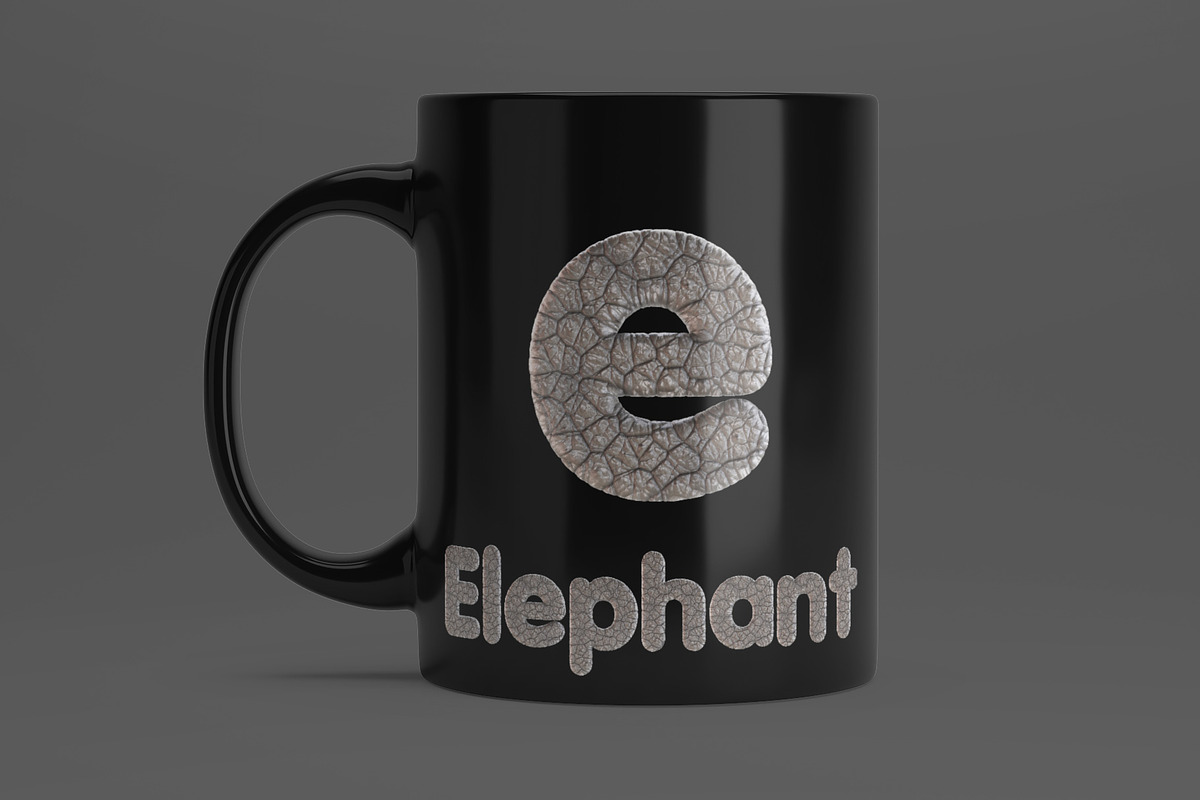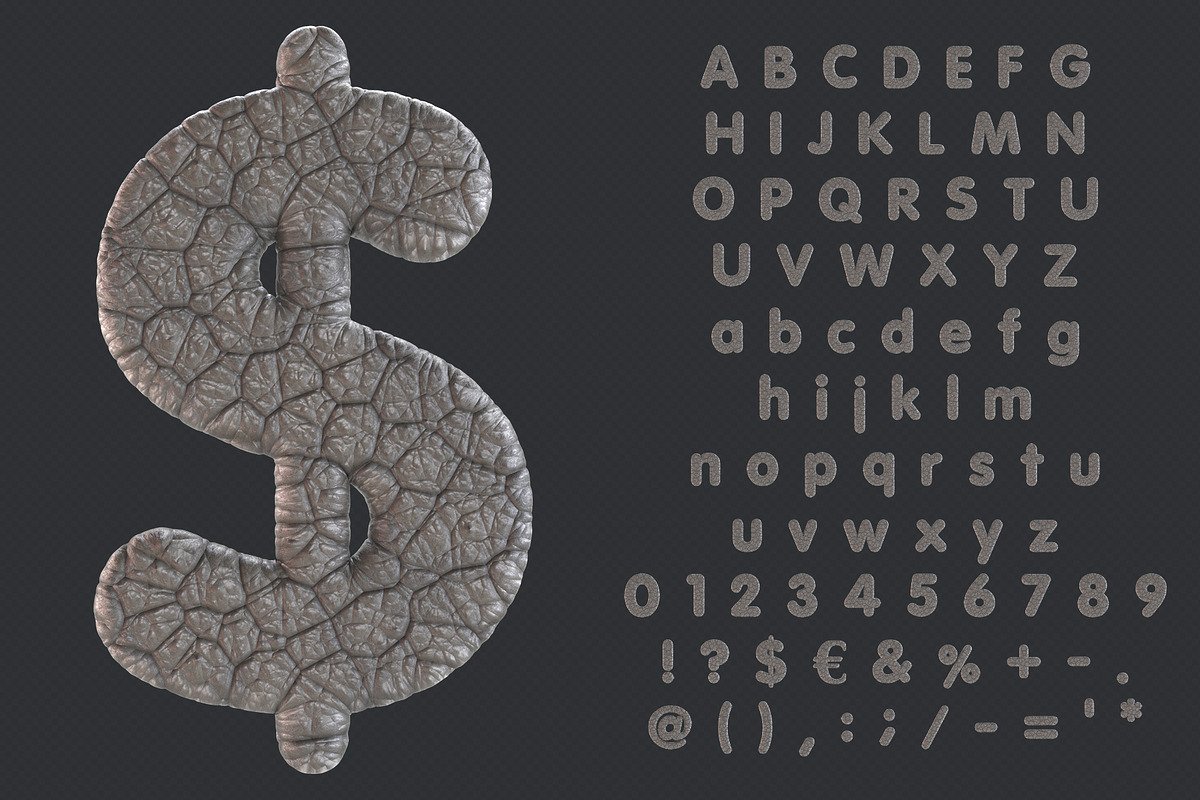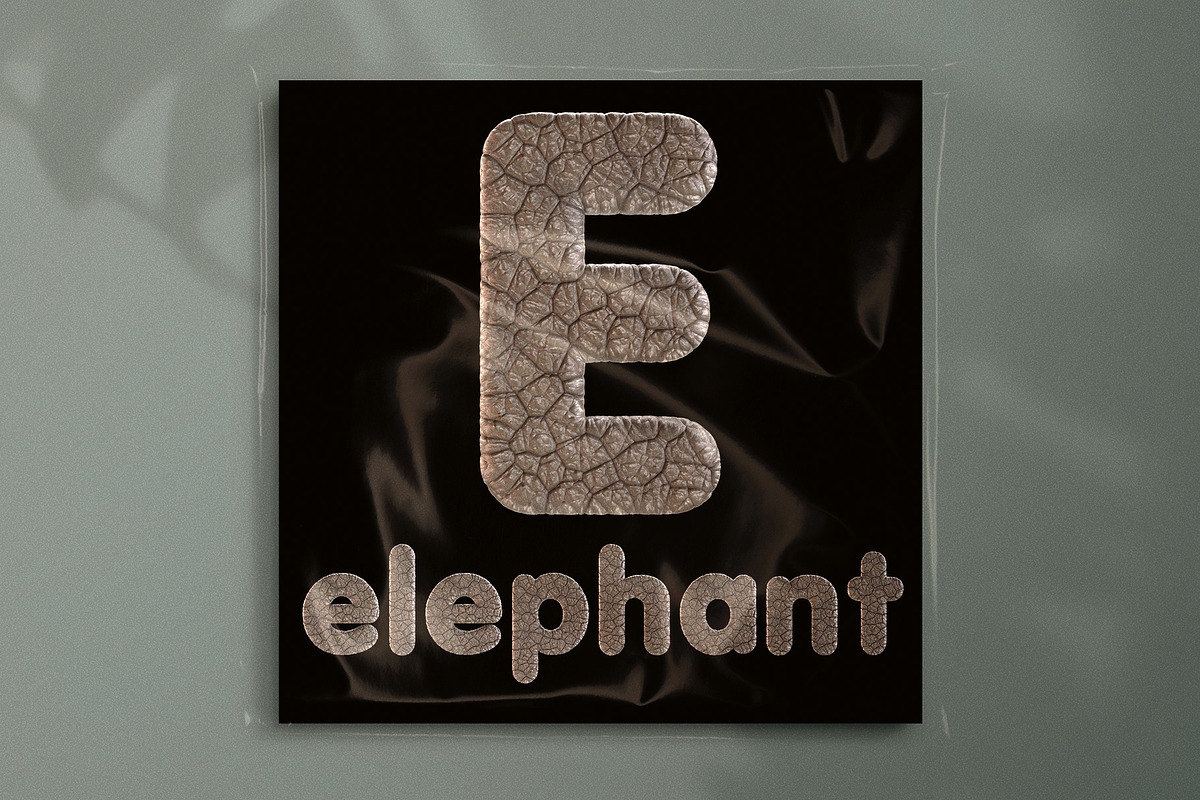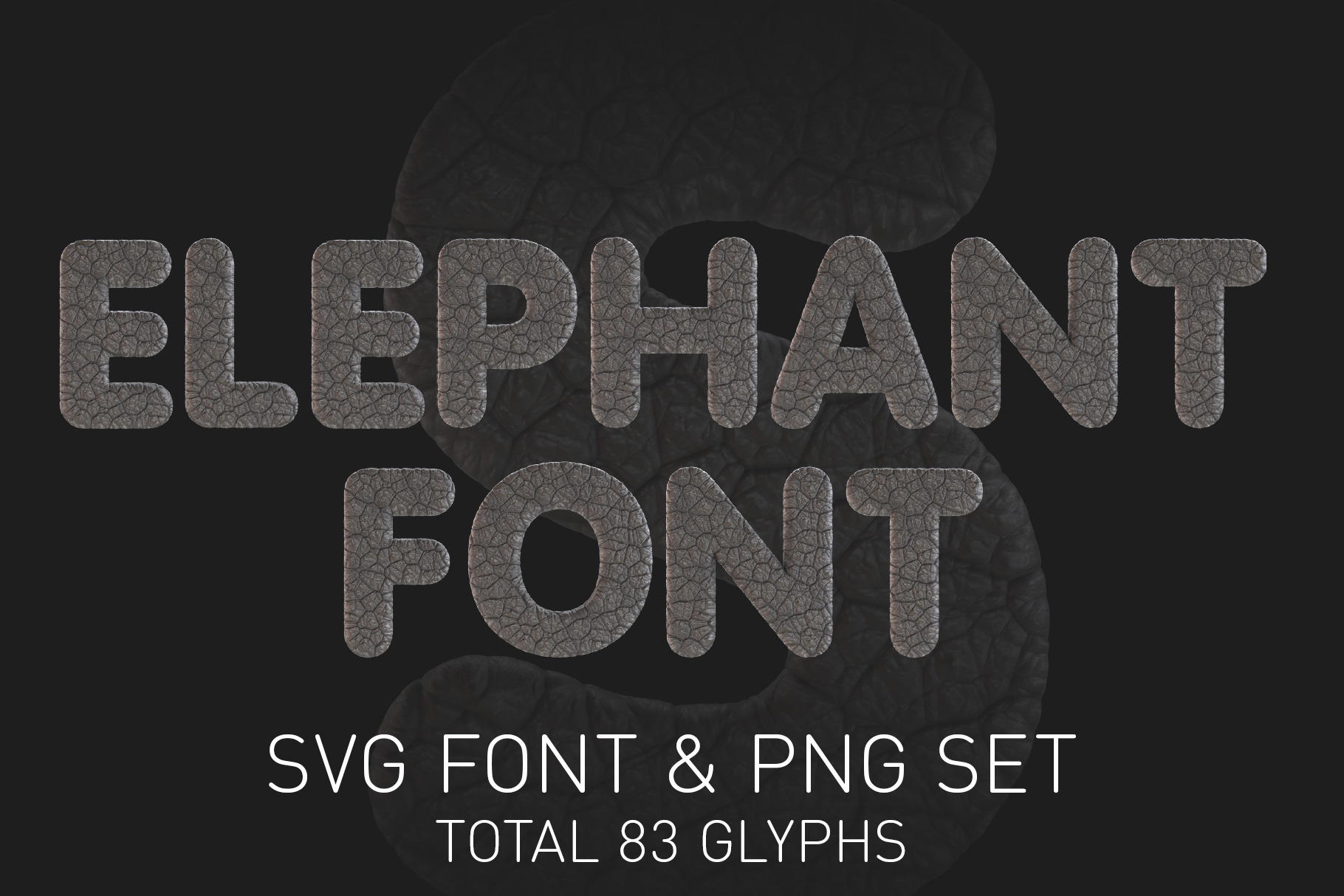
Elephant Color SVG Font and PNGs
Introducing the majestic and captivating Elephant Color Bitmap SVG Font and transparent PNGs, a unique and creative font that will add a touch of wildlife-inspired charm to your design projects. This font features 83 beautifully designed glyphs in a high-quality 2048x2048 pixel resolution transparent PNG format, providing exceptional clarity and detail.
The Elephant Color Bitmap SVG Font is perfect for a variety of design projects, including wildlife conservation campaigns, educational materials, social media graphics, and more. Its bold and majestic design is ideal for creating a powerful and impactful message, perfect for raising awareness about environmental issues.
Whether you're a graphic designer, educator, or simply looking to add a unique touch to your designs, the Elephant Color Bitmap SVG Font is the perfect choice.